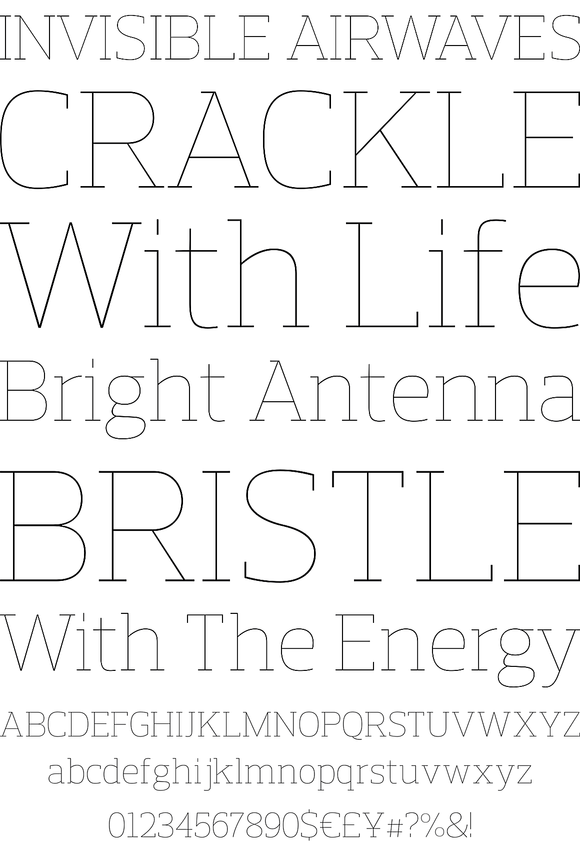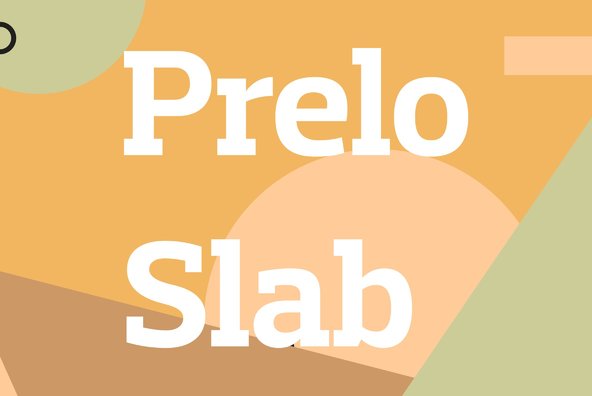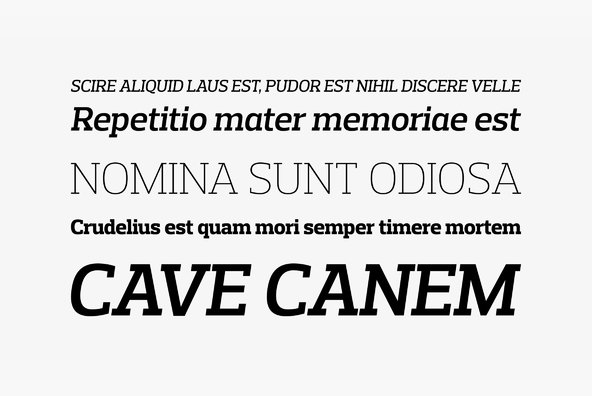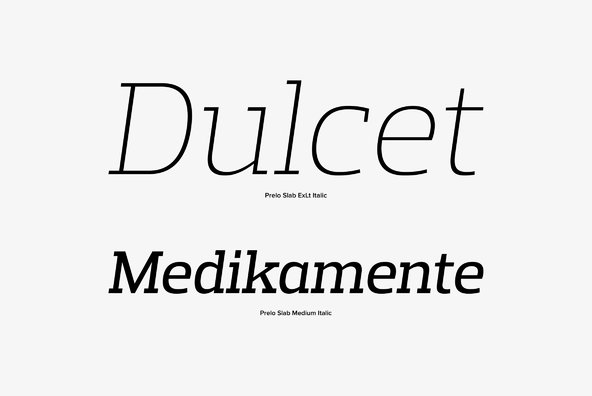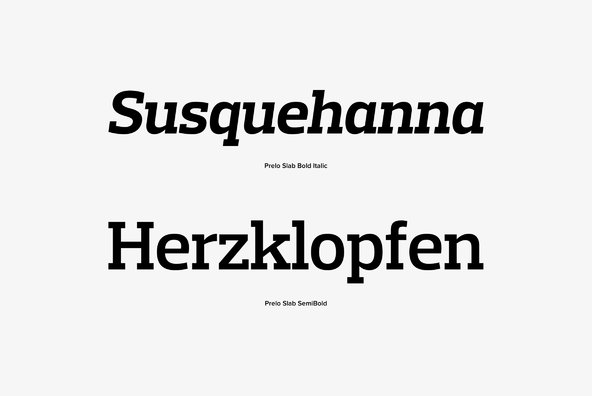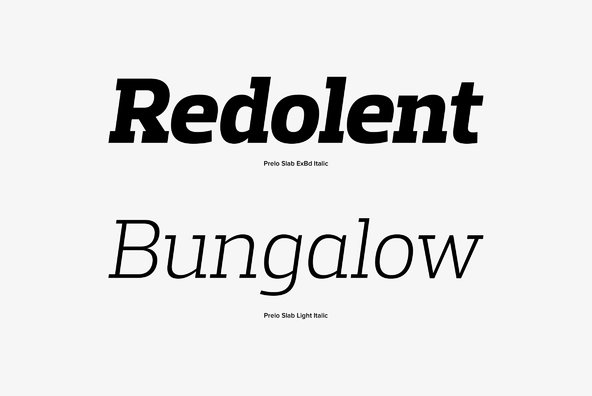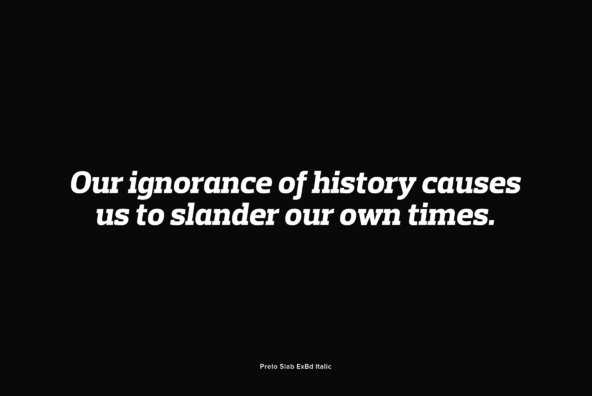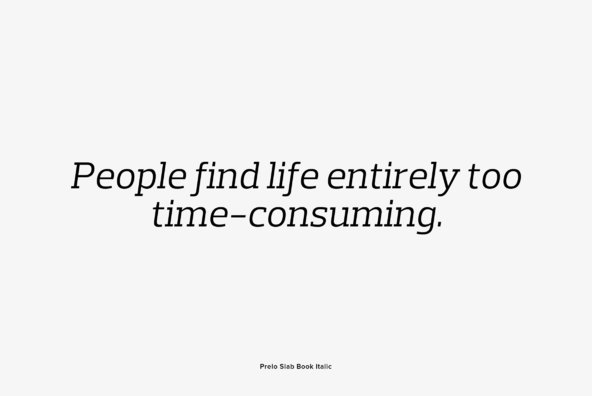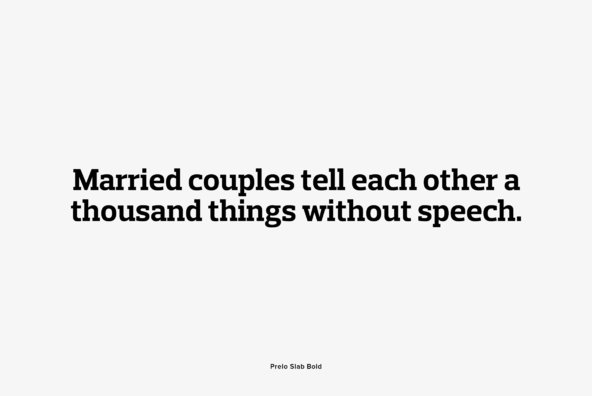
Prelo Slab is the serif companion to Prelo, a neutral, highly readable typeface, for identity, editorial and information design.
With nine weights and nine italics, from Hairline to Black, Prelo Slab is a workhorse typeface, full of OpenType features such as Small Caps, Tabular Figures, Central Europe characters and Historical Figures, among others.
Like other DSType fonts, most of the diacritics were designed to fit the gap between the x-height and the caps height, avoiding some common problems with the accented characters. The curves are soft and smooth, while the serifs are sharp and strong, providing legibility, even in very poor conditions.